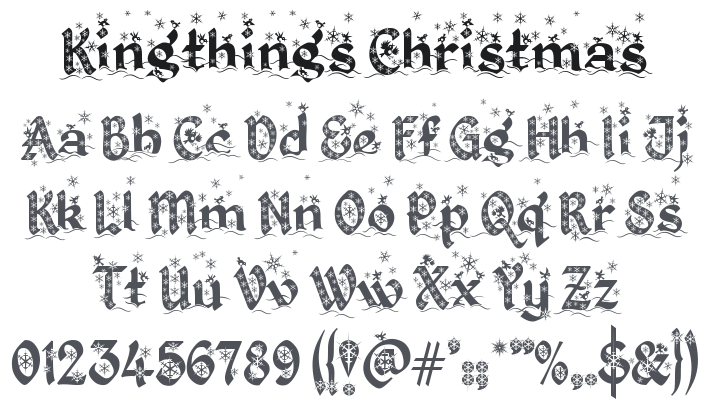
Kingthings Christmas Font
About Kingthings Christmas
Kingthings Christmas - Based on Kingthings Petrock - this is a display font and needs to be used at least an inch high to see any detail.